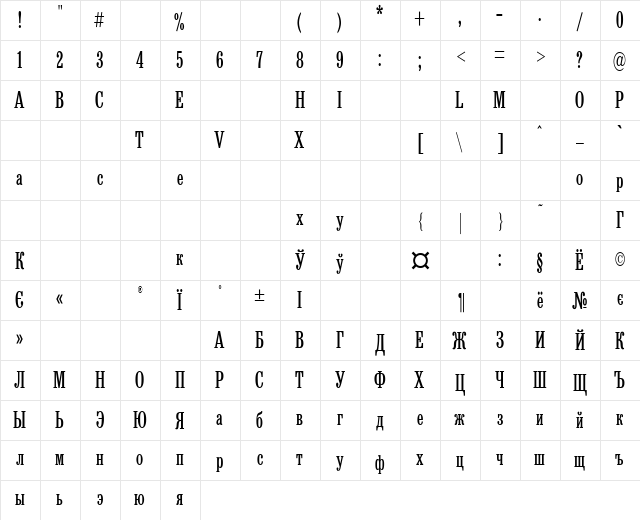
BrickNewsConden Regular
Design Context for BrickNewsConden Typeface
BrickNewsConden offers clean, dependable letterforms without strong stylistic allegiance, making it a practical choice for designers who need flexibility. The condensed width makes it efficient for tight spaces without sacrificing legibility.